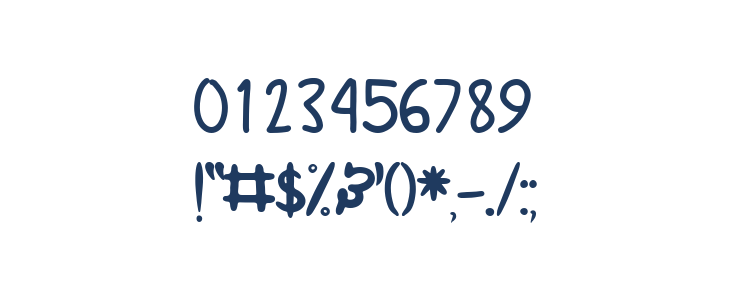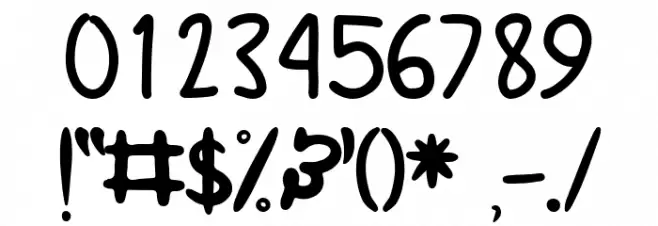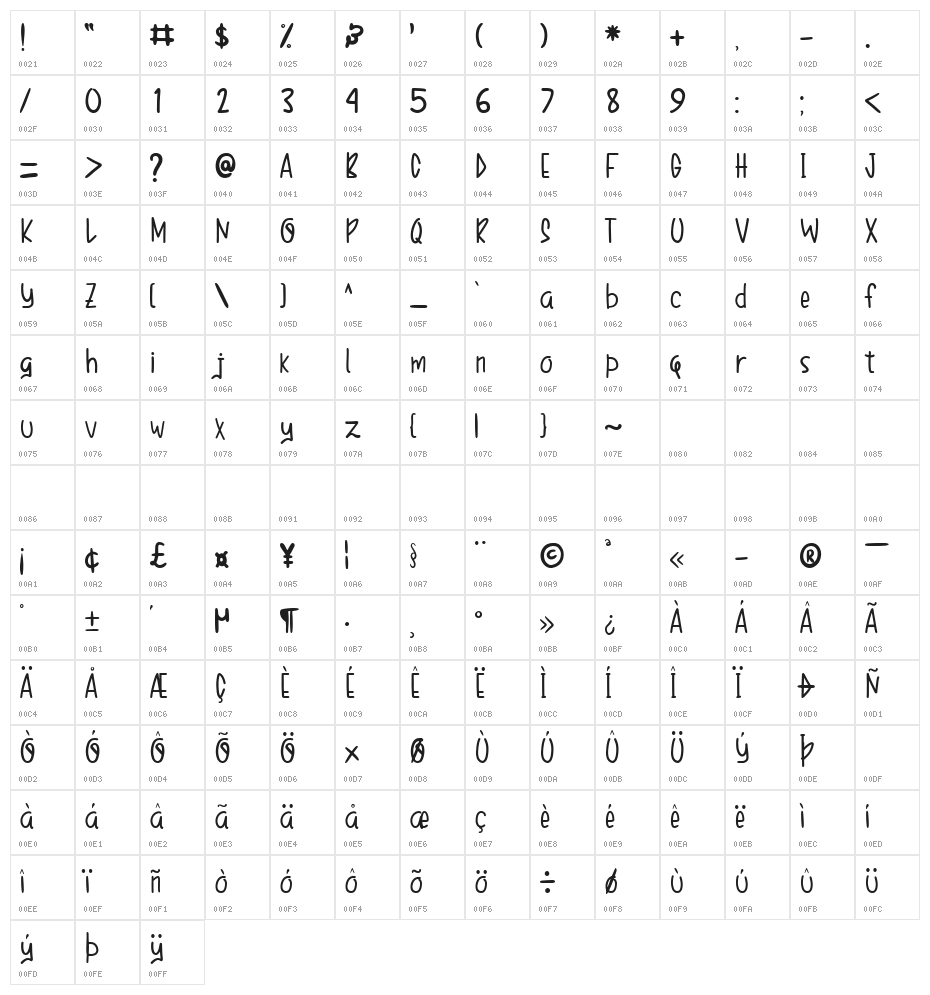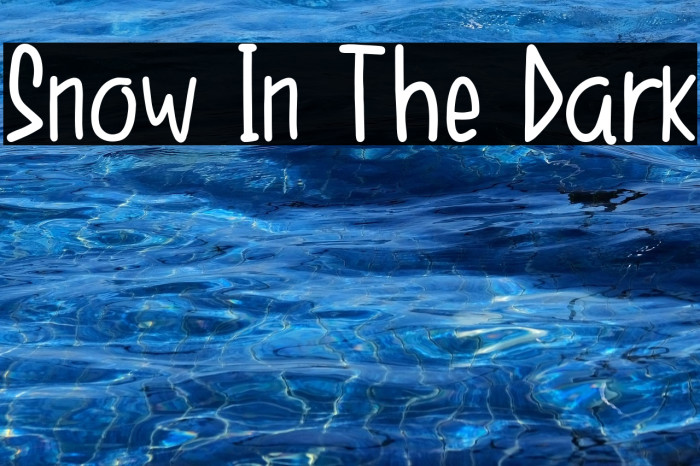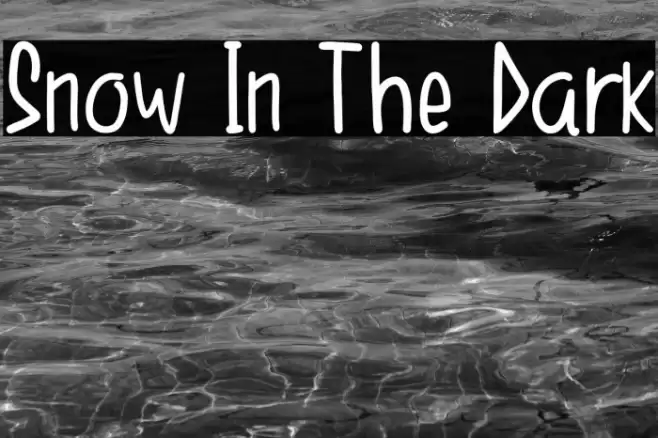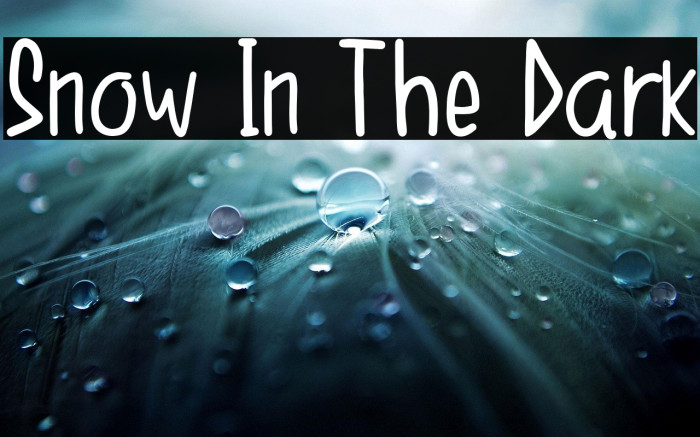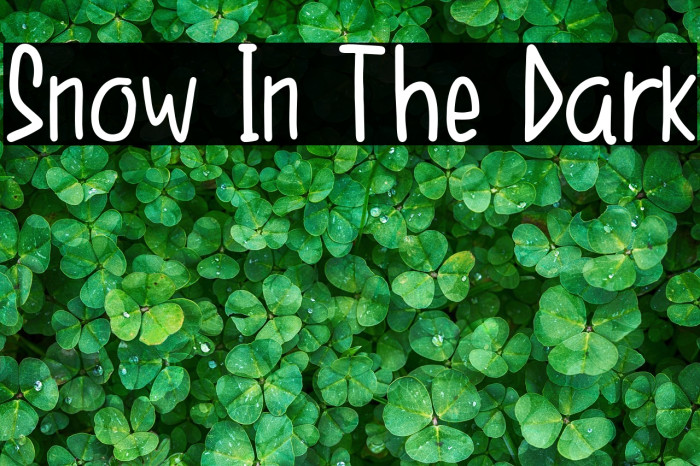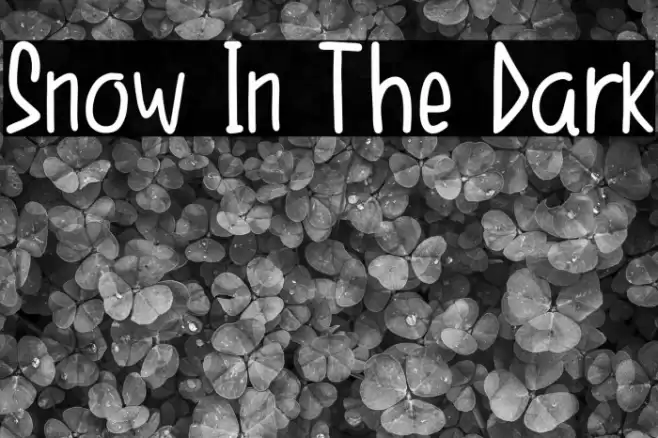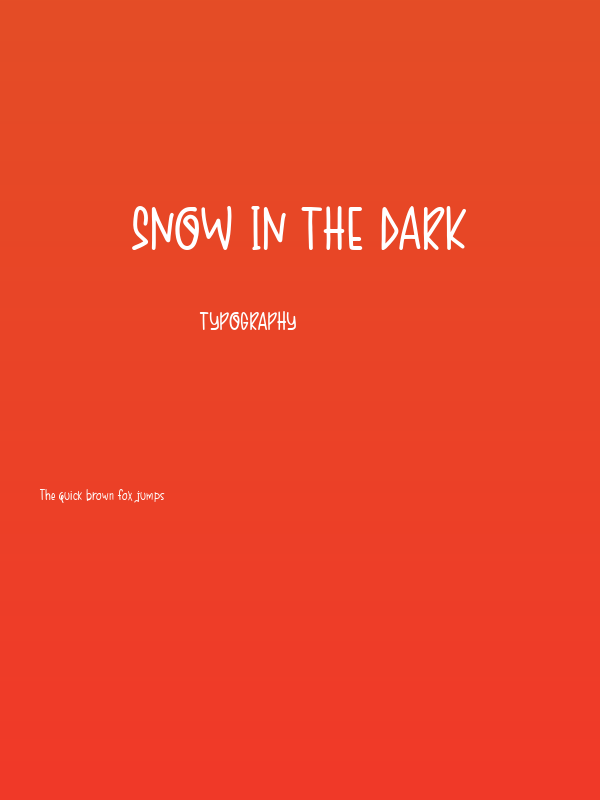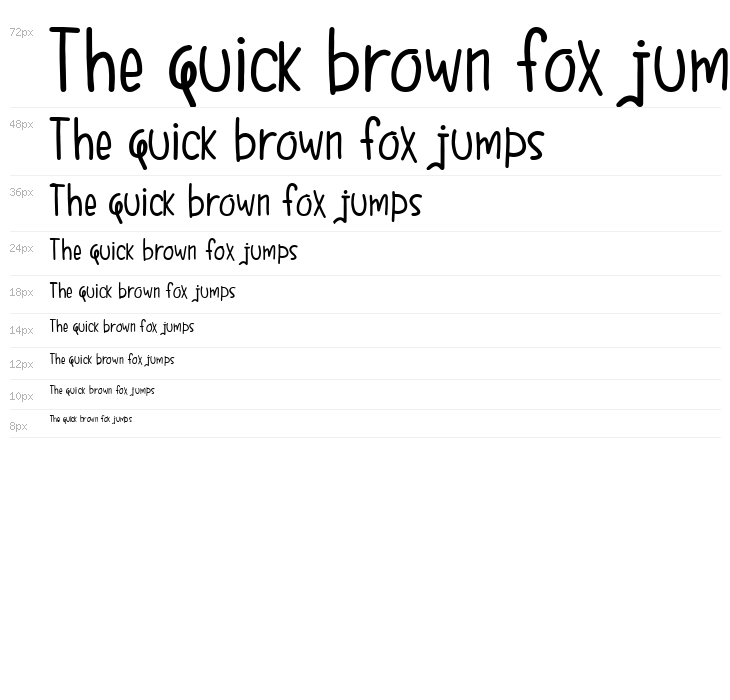
Snow In The Dark Font
Snow In The Dark Description
This font features a playful and whimsical style, characterized by its hand-drawn appearance. The letters have a casual, informal look with slightly uneven strokes, giving it a friendly and approachable feel. The uppercase and lowercase letters are well-balanced, with a consistent stroke width that maintains readability. The numbers and special characters follow the same playful design, making them suitable for creative projects. The overall design is reminiscent of handwriting, adding a personal touch to any text. This font is ideal for projects that require a fun and engaging aesthetic, such as children's books, greeting cards, or playful branding.
| Proposed Projects | Children's books, greeting cards, playful branding, creative posters. |